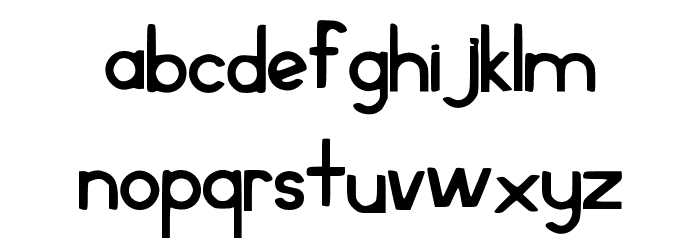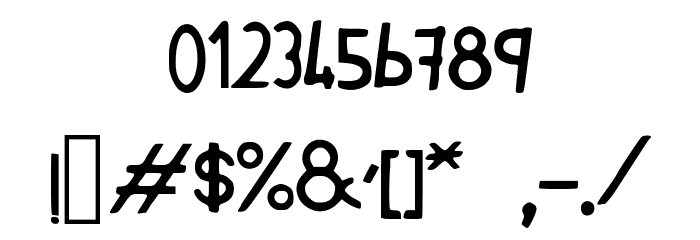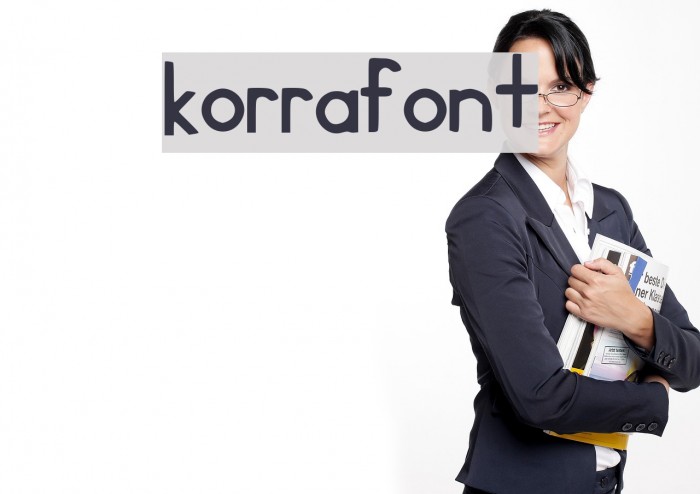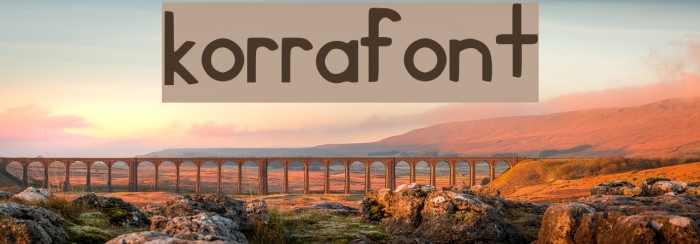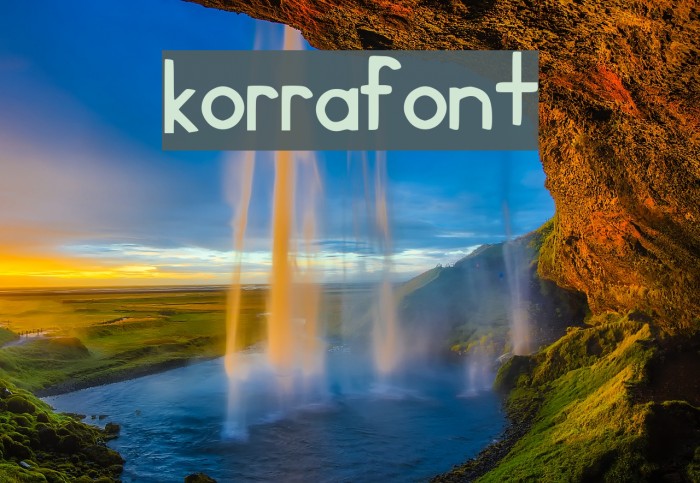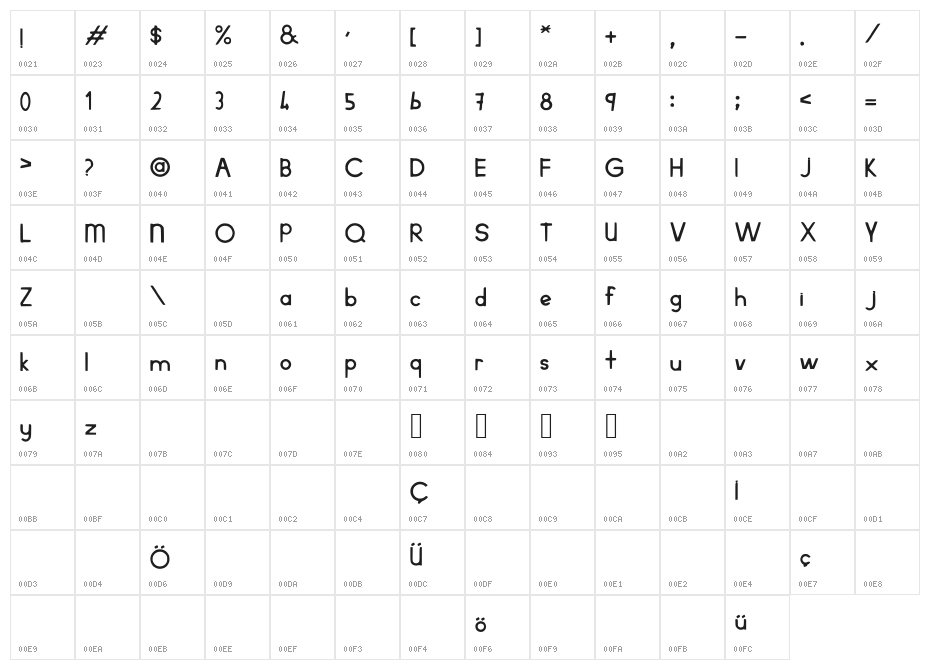
korra_font Font
This font features a playful and rounded style, characterized by its smooth curves and friendly appearance. The letters have a consistent stroke width, giving it a uniform look. The uppercase and lowercase letters are well-balanced, with a slight whimsical touch that adds to its charm. The numerals are clear and easy to read, maintaining the same playful aesthetic. Special characters are included, matching the overall style of the font. This typeface is versatile and can be used in various design projects that require a light-hearted and approachable feel.
A playful, rounded font with smooth curves and a friendly appearance.
- Proposed Projects: Ideal for children's books, playful branding, casual invitations, and creative posters.
- Overall Style: Playful